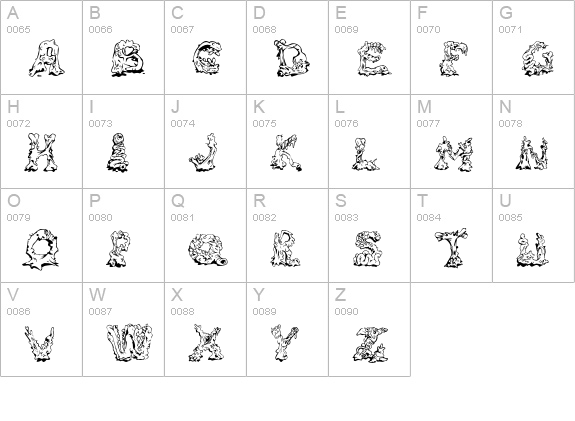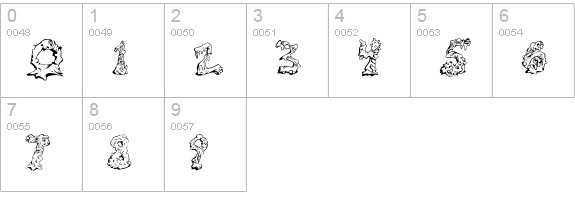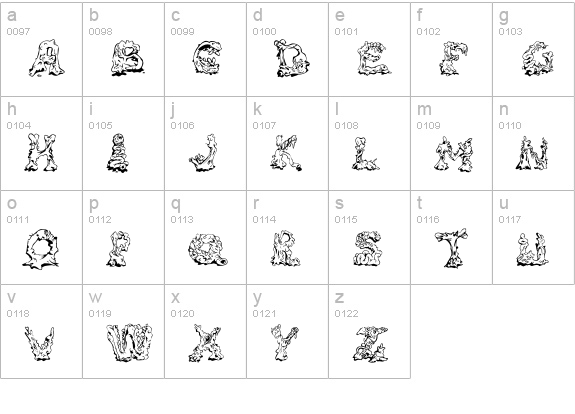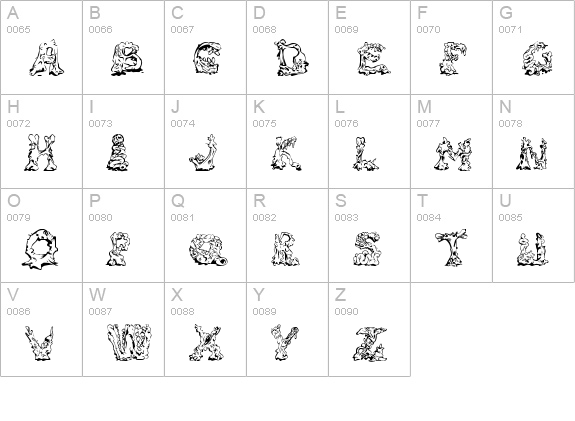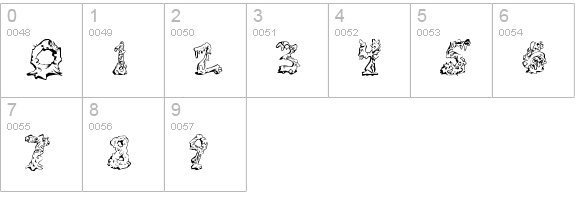
RiotAct Font Details
Introducing RiotAct font, a bold and dynamic typeface designed to make a statement. With its edgy and rebellious style, RiotAct is perfect for projects that demand attention and convey a sense of urgency. This versatile font is ideal for posters, apparel designs, album covers, and more. And the best part? RiotAct is available for free download at FontsMarket.com. Take advantage of this unique opportunity to add a touch of rebellion to your designs without breaking the bank. Download RiotAct today and unleash your creativity with this powerful and striking font.